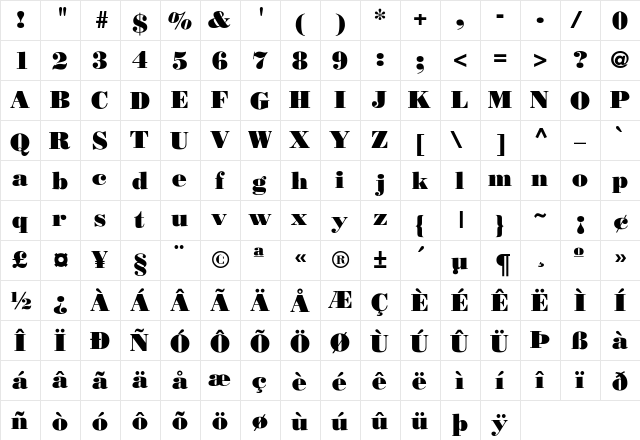
Serif-Really-Big Regular
Design Context for Serif-Really-Big Typeface
Serif-Really-Big carries the refined structure of traditional serif typography, with bracketed terminals and considered proportions that communicate credibility and craft.